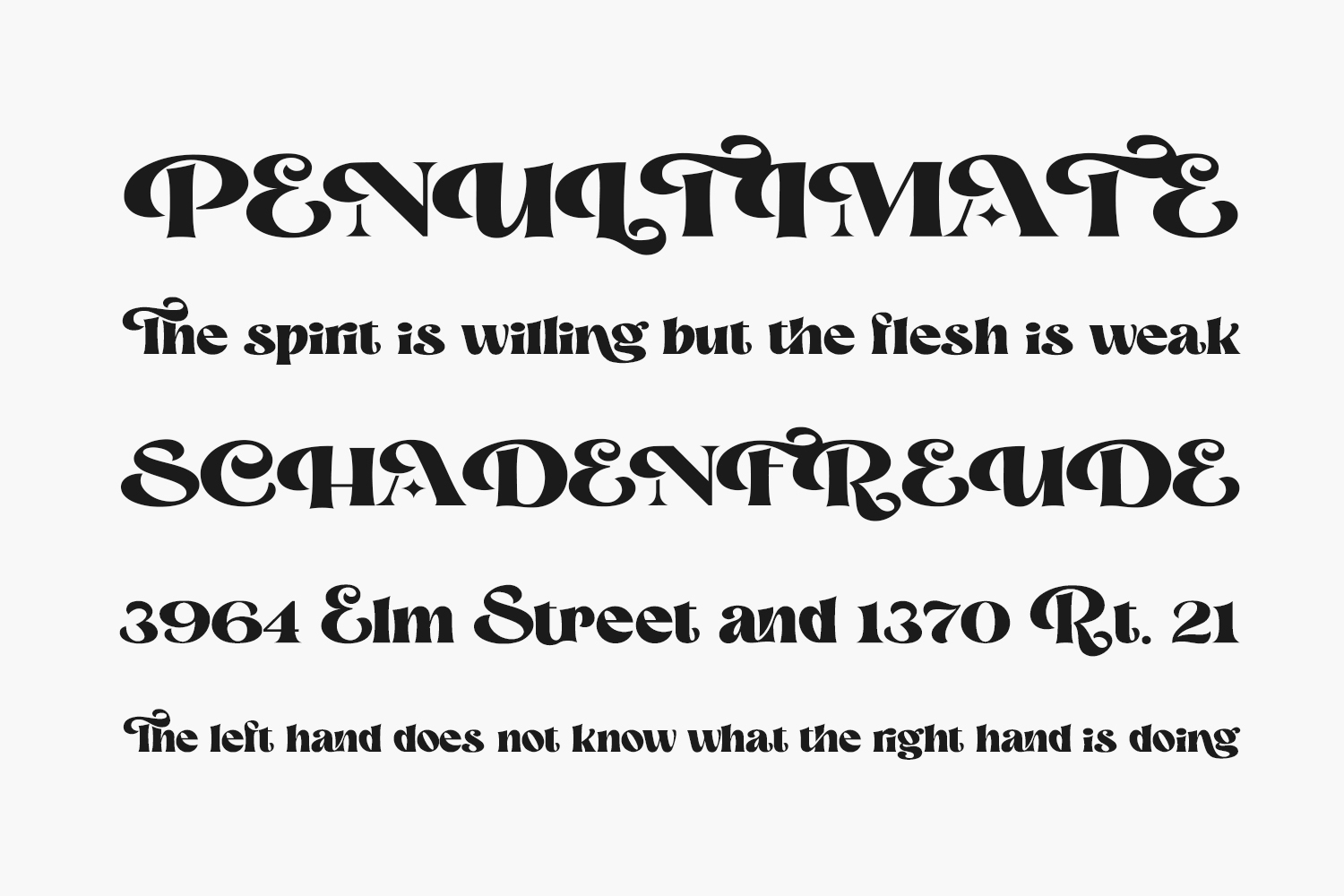
Magic Retro Free Font feels playfully nostalgic and delivers an incredible vintage aesthetic. Use this serif font to add that special touch to any design idea you can think of. Magic Retro Free Font was designed by HansCo and is free for personal use only. Please purchase the full version for commercial use.